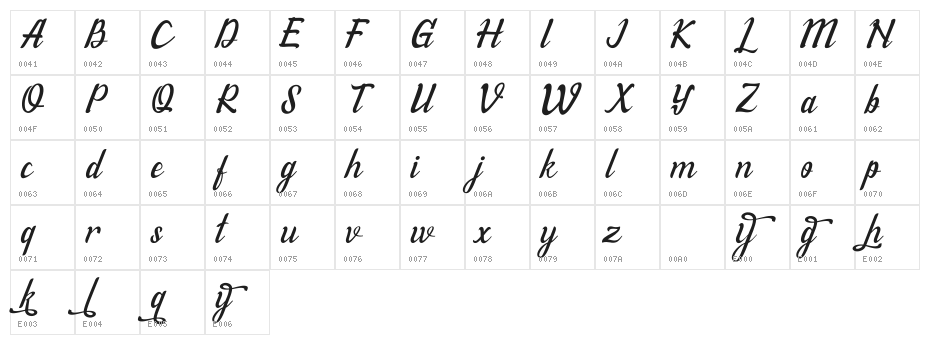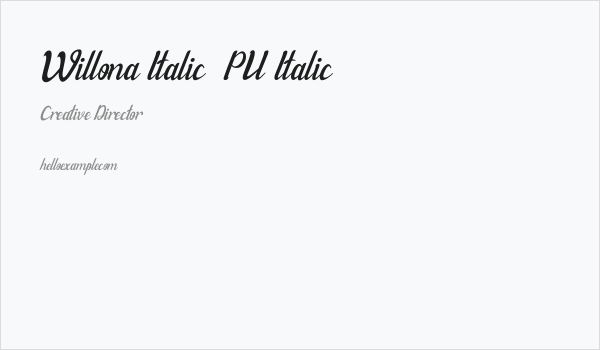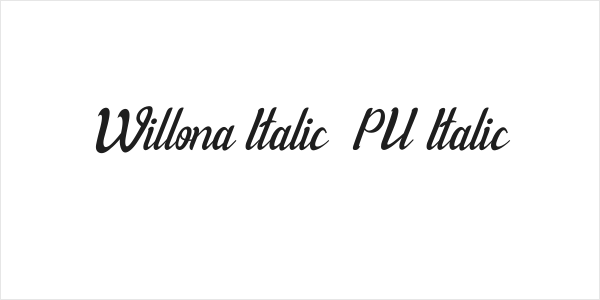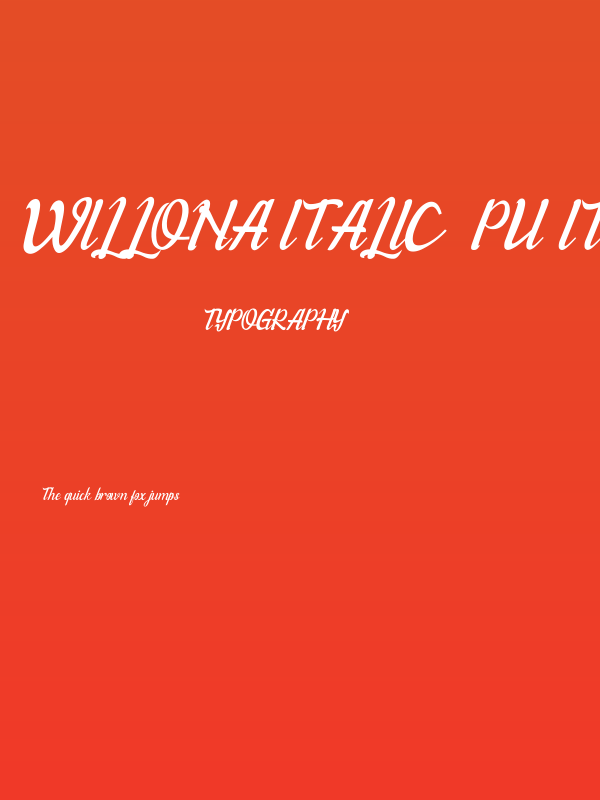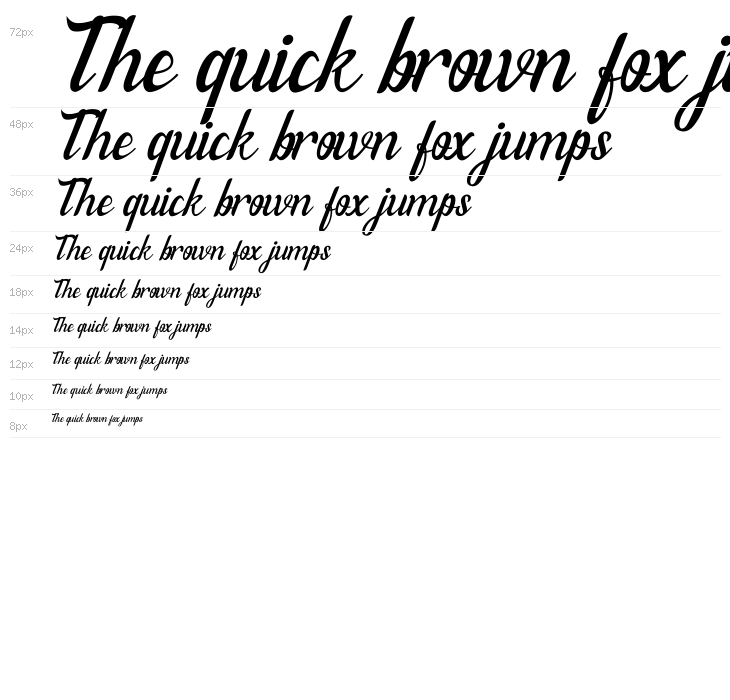
Willona Italic - PU Italic Font
Willona Italic - PU Italic Description
This font exhibits a dynamic and fluid script style, characterized by its elegant and flowing letterforms. The strokes are smooth and connected, giving it a handwritten appearance. The uppercase letters are bold and slightly slanted, while the lowercase letters maintain a consistent slant, enhancing the cursive feel. The overall design is sophisticated, with a touch of modern flair, making it suitable for creative and expressive projects. The font's italic nature adds a sense of motion and grace, perfect for adding a personal touch to any design.